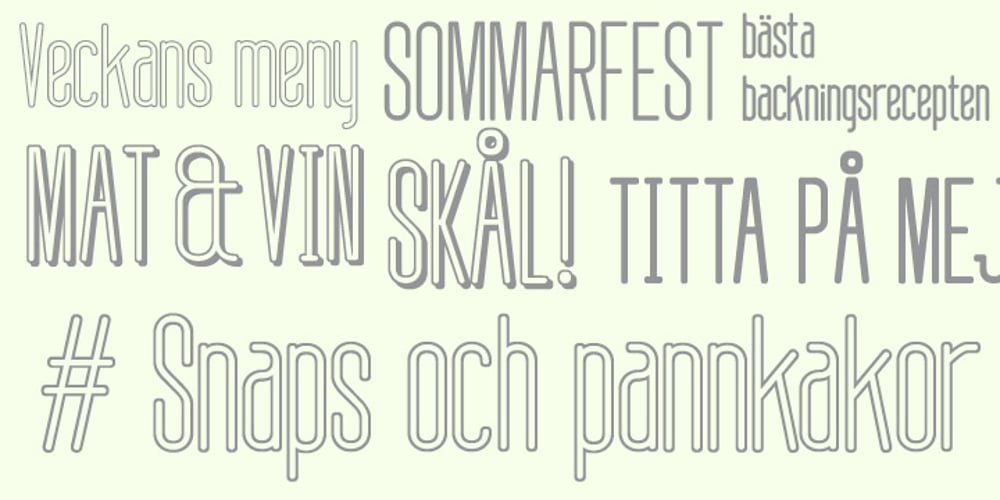
Linja
Linja font
Linja Font Family was designed by Emil Karl Bertell and published by Fenotype. Linja contains 6 styles and family package options. Linja is an elegant ultra condensed font. It’s best for display use in magazines, books & posters. Linja font was originally designed in 2002. Now it’s been remade with the complete character set and six different versions.